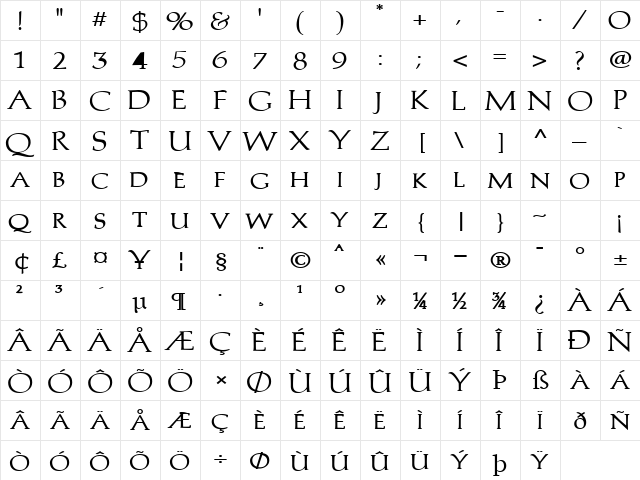
Trajan'sCapsExtended Bold
Design Context for Trajan'sCapsExtended Typeface
Trajan'sCapsExtended takes a measured approach to typography — its balanced proportions and neutral character make it a reliable workhorse for both digital and print work. Its bold stroke weight gives it real presence on the page.